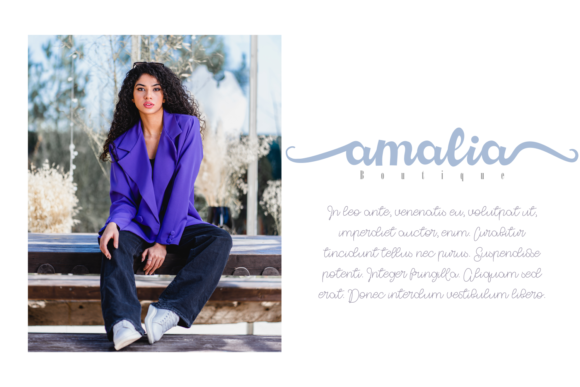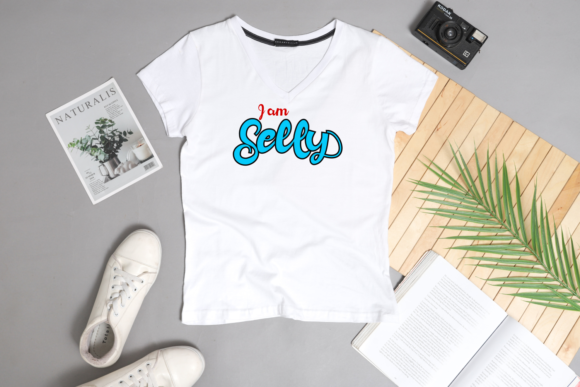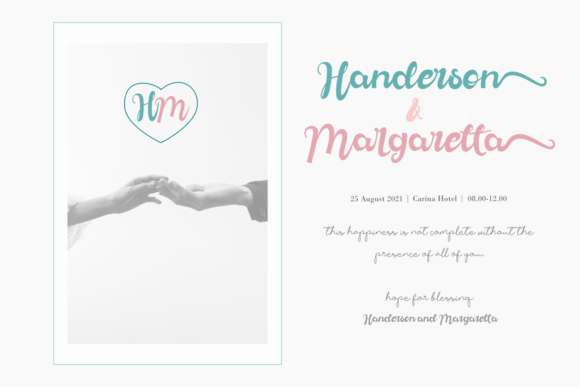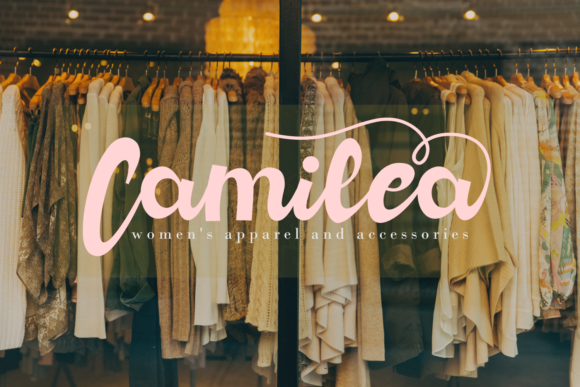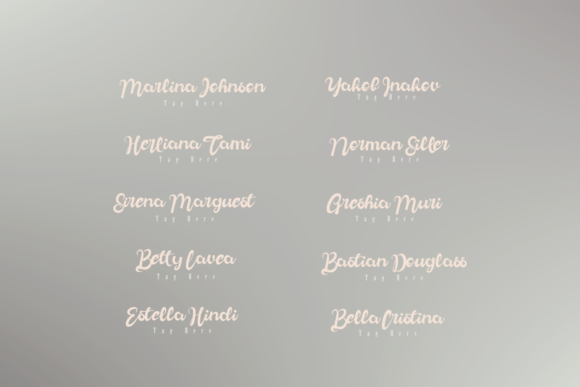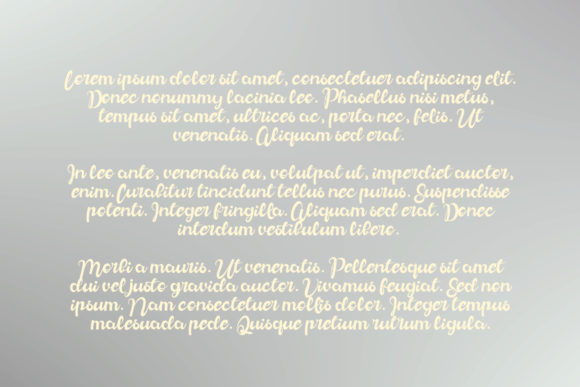
Introduction to Makasih Font
Makasih feels equally charming and elegant.
It looks lovely on wedding invitations, thank you cards, quotes, greeting cards, logos, business cards and every other design which needs a customized touch This font is PUA encoded which means you can access all of the glyphs and swashes with ease.